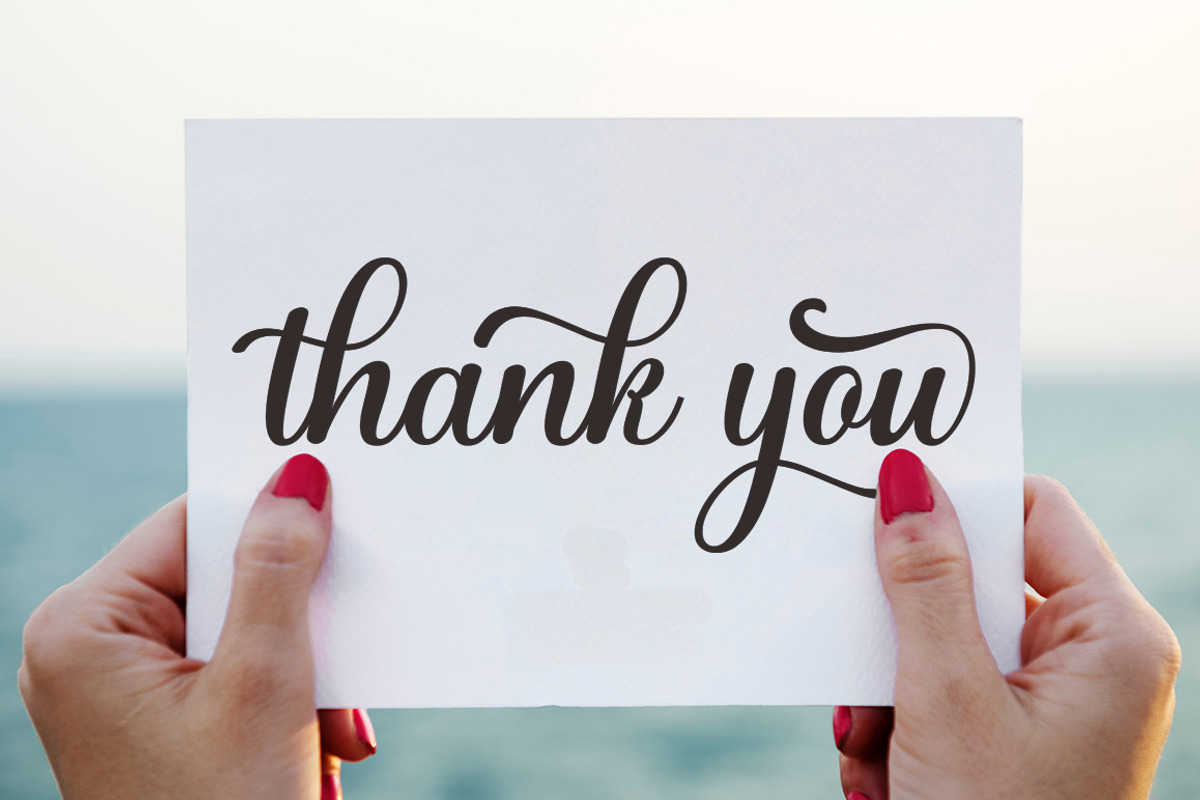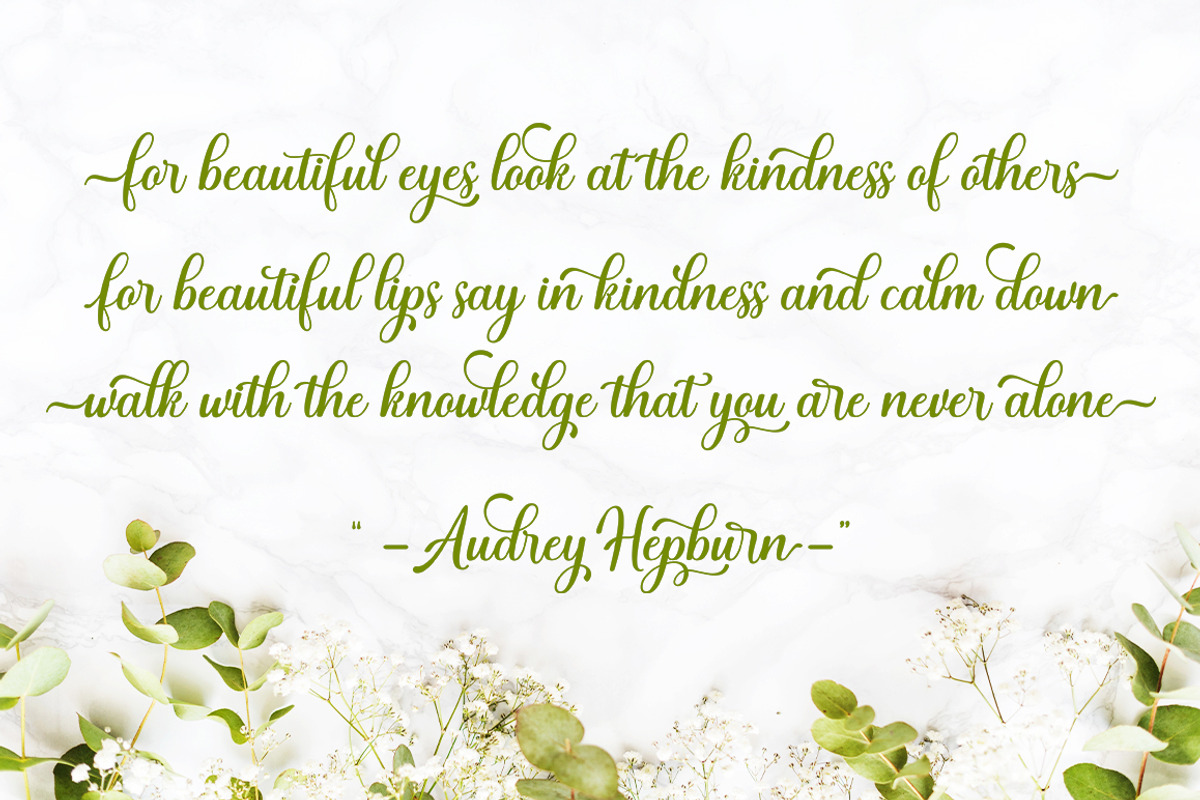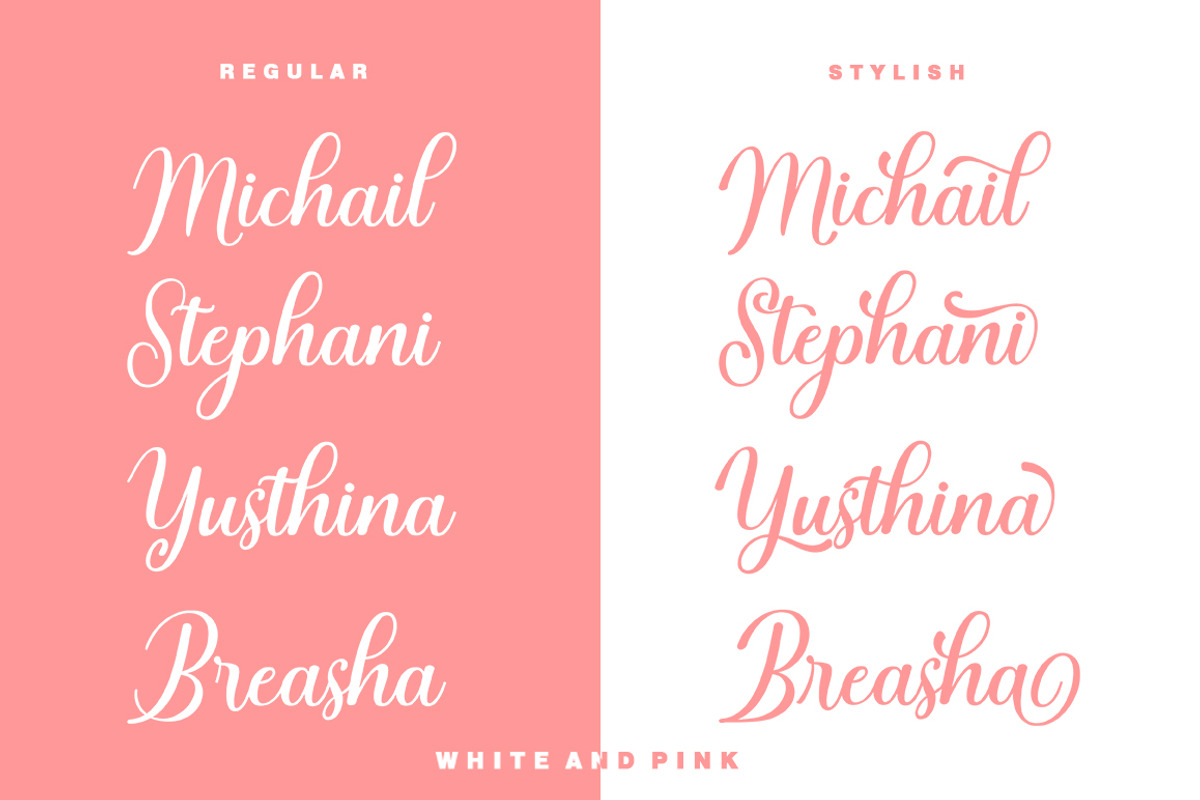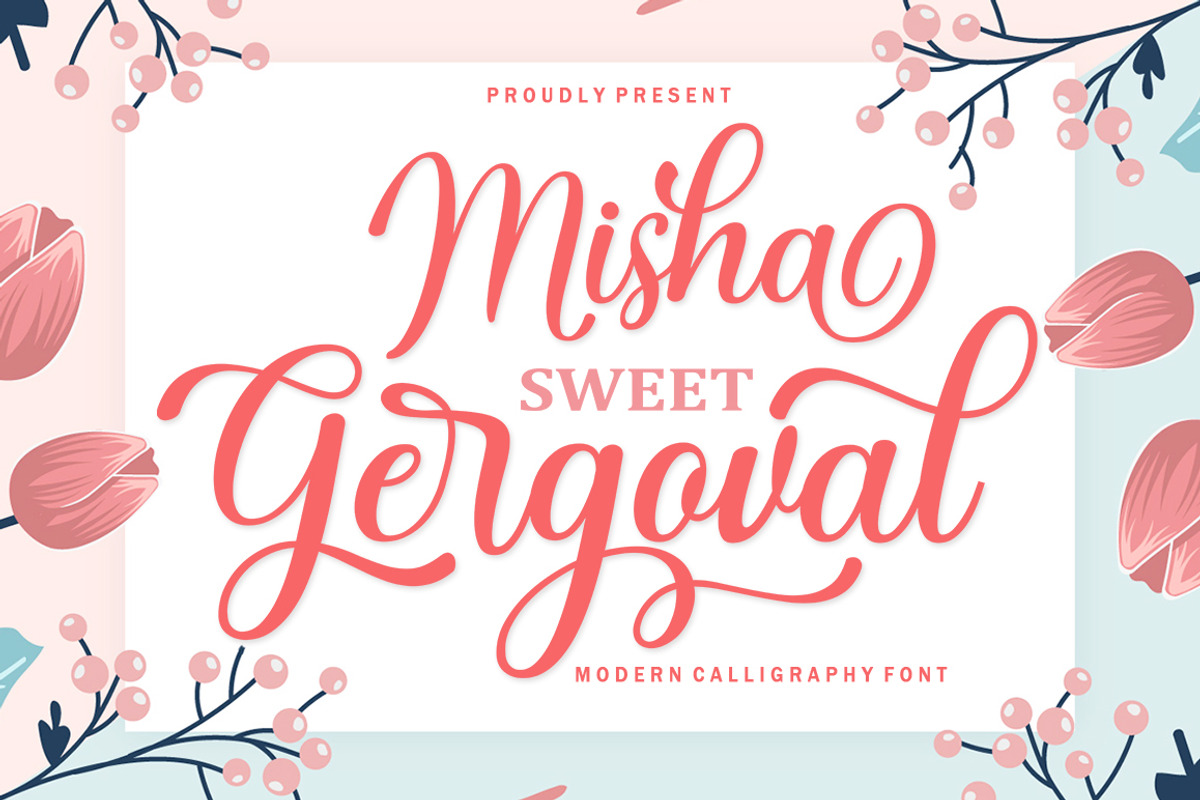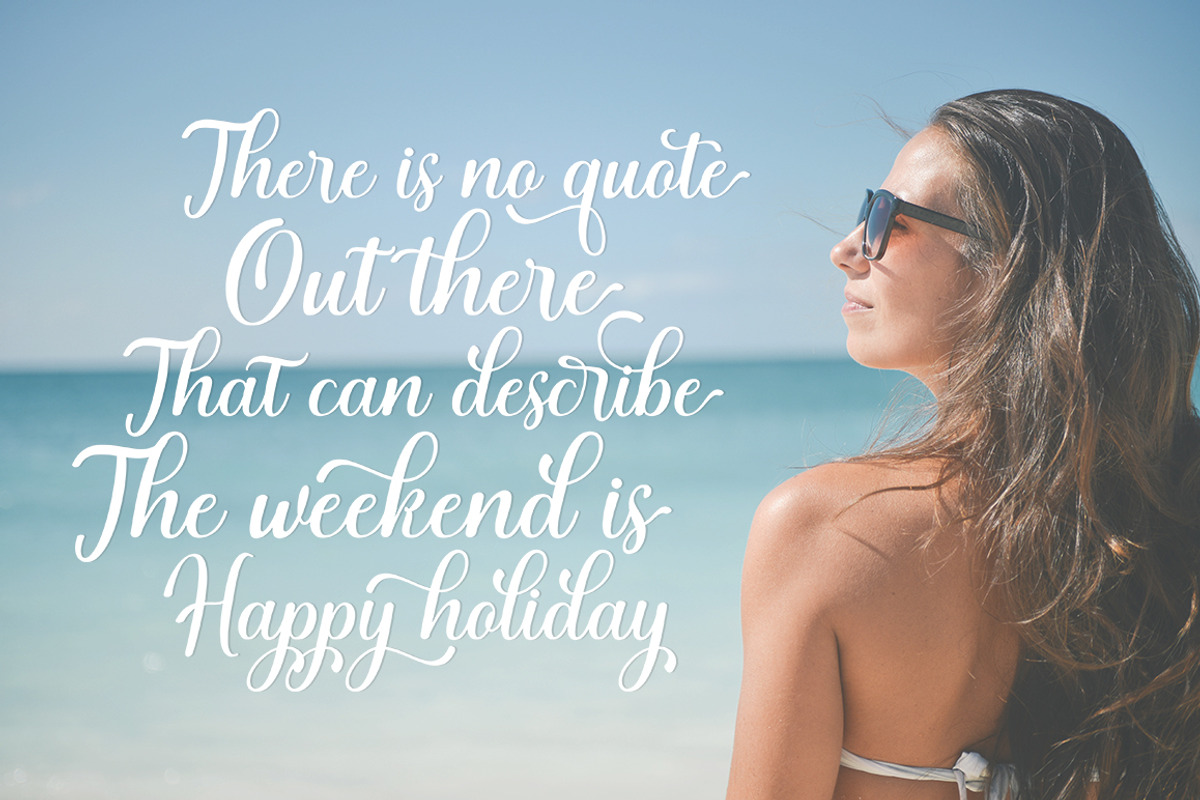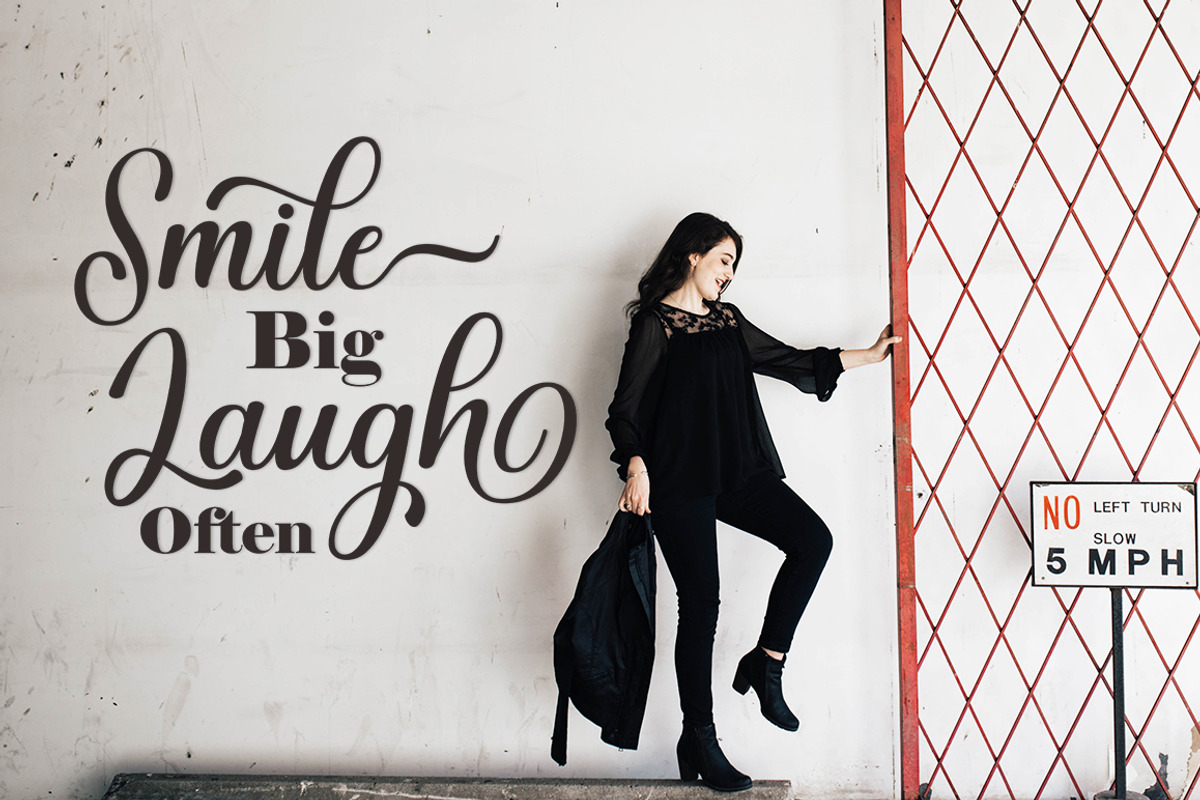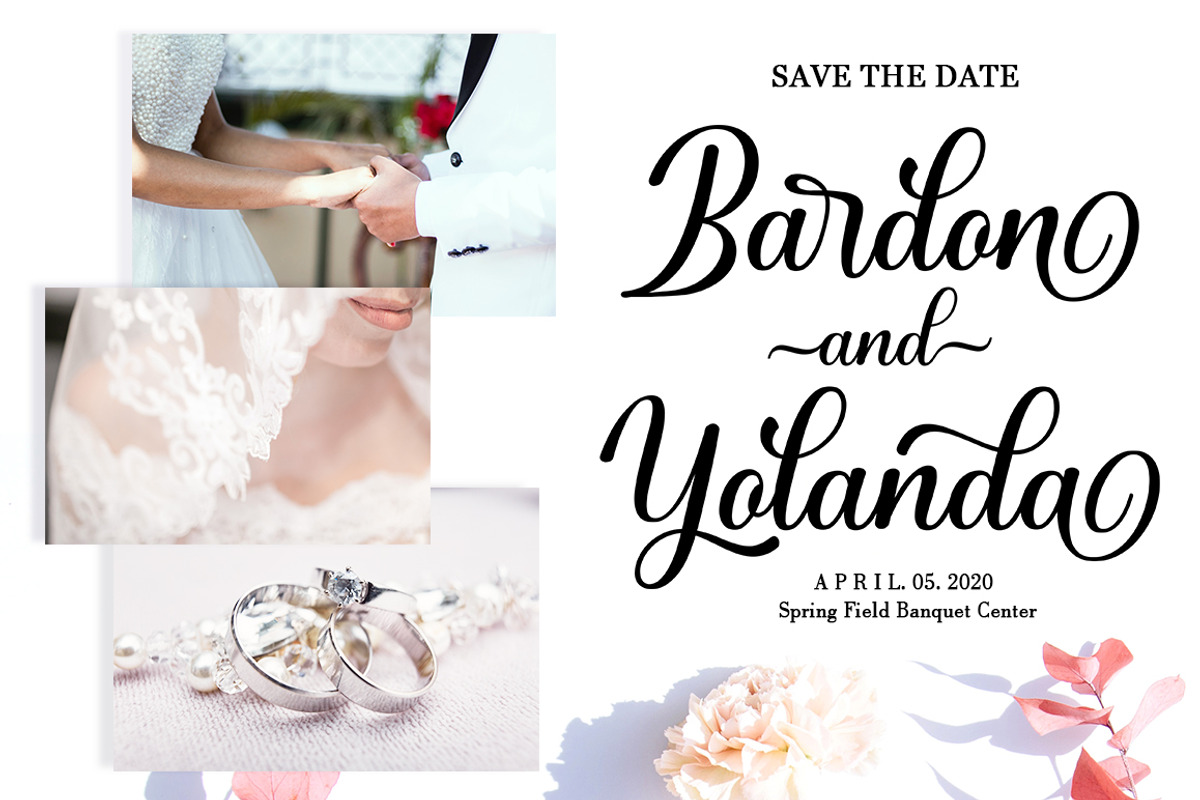
Misha Gergoval
Misha Gergoval Script is a new and fresh font script that comes in a vintage and neat style. so this font can be used easily, even in mixing and matching with other fonts. so that it can provide alternatives and new sensations for designers or craftsmen, in working on various projects.
Misha Gergoval Script comes with uppercase letters, lowercase letters, numbers, punctuation, and so many variations on each character including OpenType alternatives, and general binders to allow you to customize the design.
This font is perfect for all your projects such as wedding invitations, greeting cards, branding materials, business cards, quotes, posters, badges, greeting cards, vintage logos, or you can use these fonts for various logo projects and more. ! The following characters are ideal for creating interesting messages, mixing and matching
Misha Gergoval Script with a group of alternative characters that are suitable for your project.